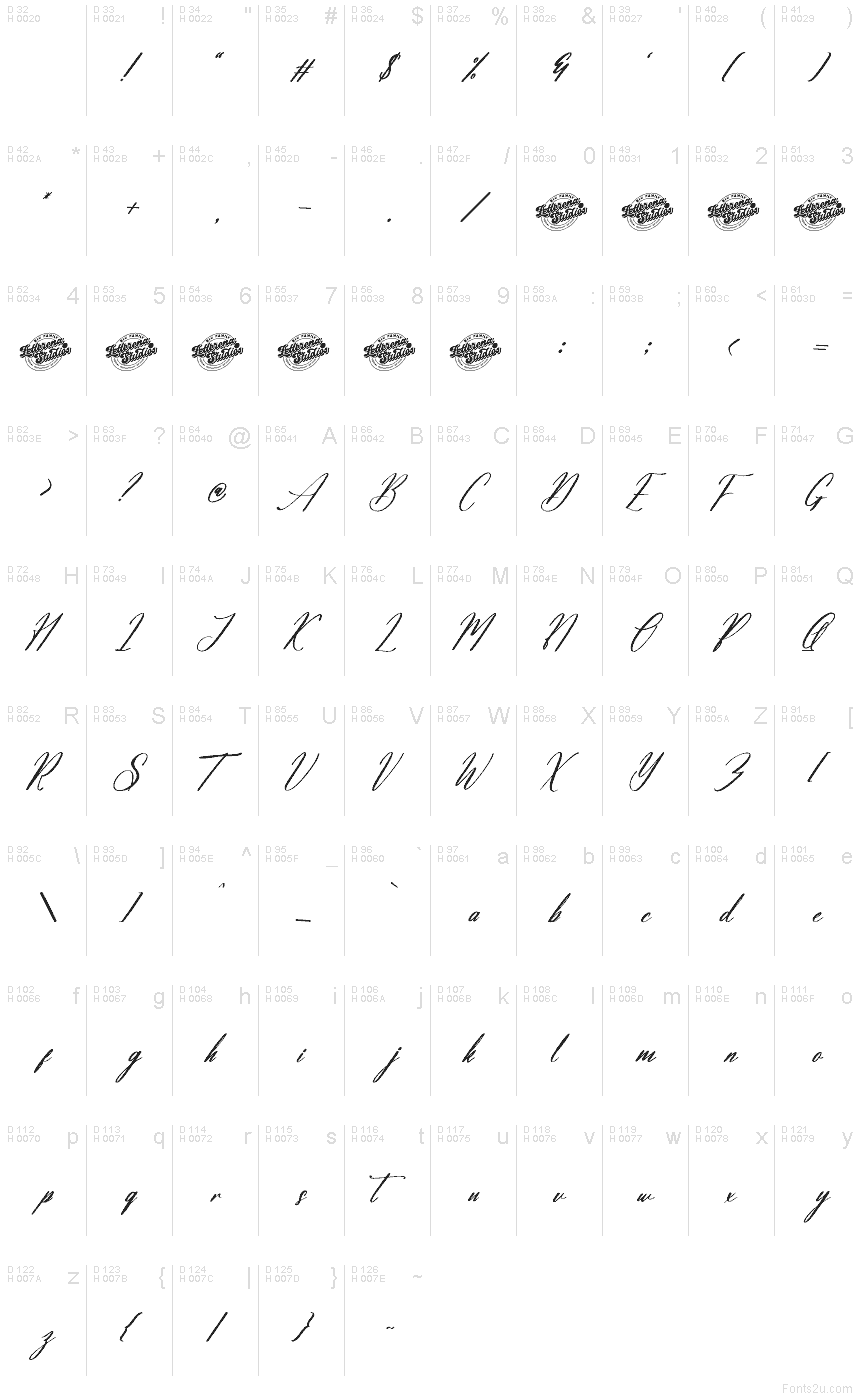
Salyatori Quinbella Italic font by Letterena Studios is a free handwritten script typeface. Part of the Salyatori Quinbella family, it sweeps across the line with inky, slanted strokes and airy loops that feel like they were brushed in one confident breath. The rhythm is lively but not messy—fine hairlines meet fuller curves, giving it that luxe, invitation-ready sheen without losing readability.
Using Salyatori Quinbella Italic, your wedding suites, boutique logos, product labels, event signage, quote graphics, and social promos gain a graceful, personal touch. The long, flowing connections create a natural cadence that guides the eye, so short phrases sing and names look signature-worthy. Pair this free font with a clean, understated sans for body copy, and give it a little extra letterspacing at larger sizes to let the swashes breathe.